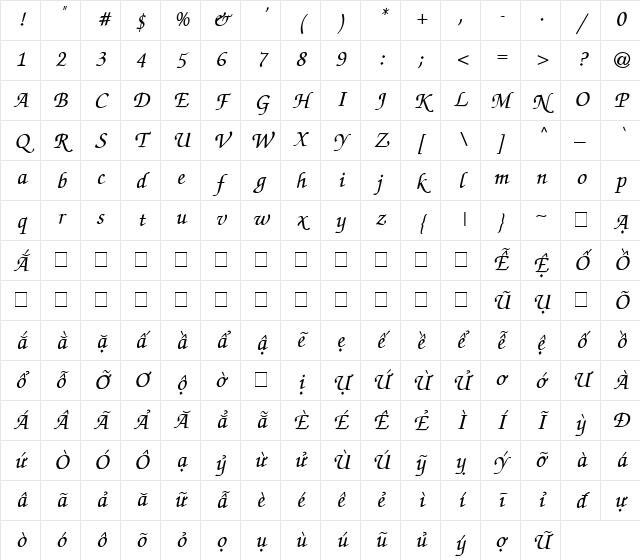
ThaHuong 1.1 Regular
Design Context for ThaHuong 1.1
ThaHuong 1.1 is a composed and adaptable typeface that performs quietly and consistently across a wide range of design contexts.